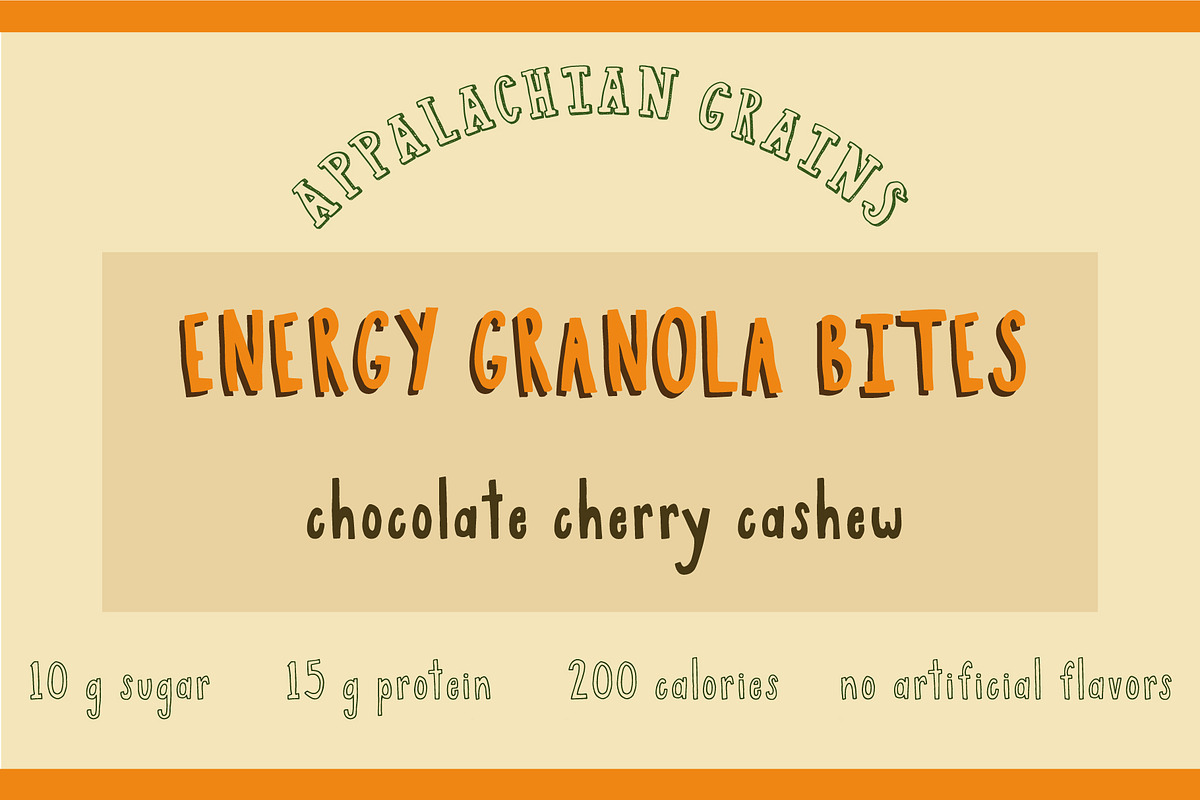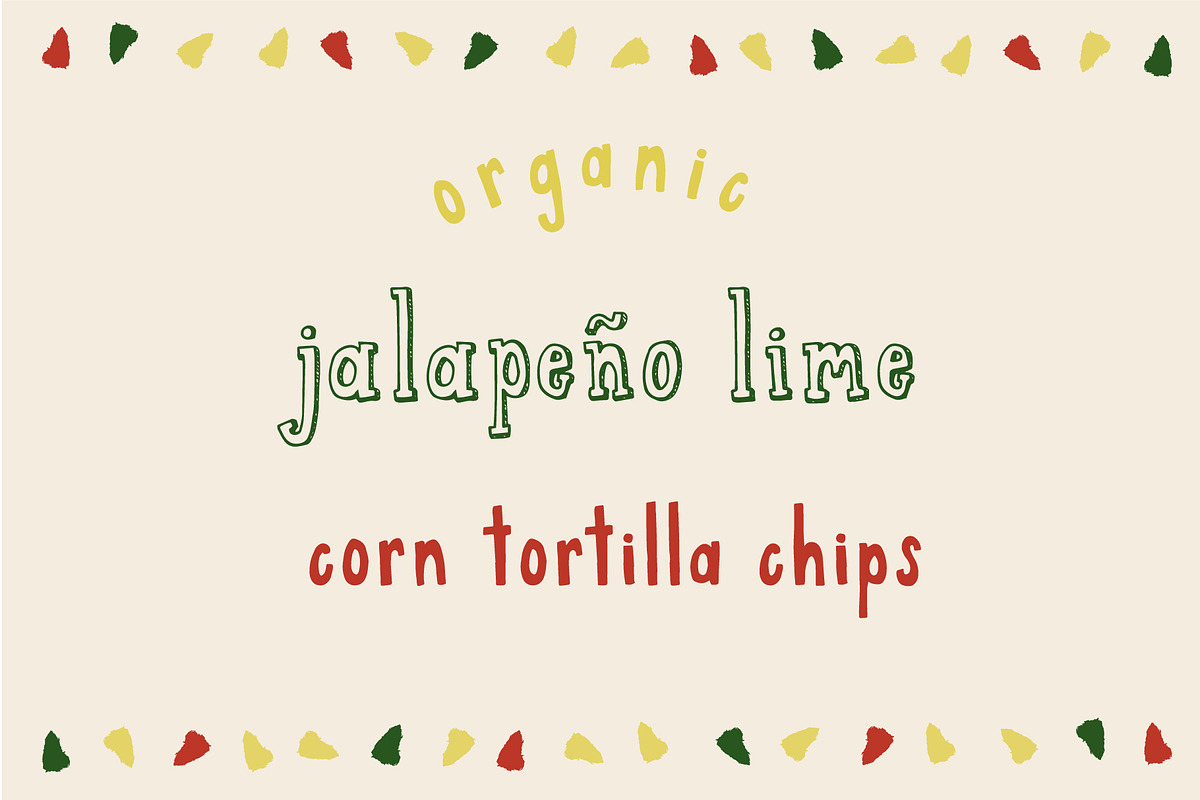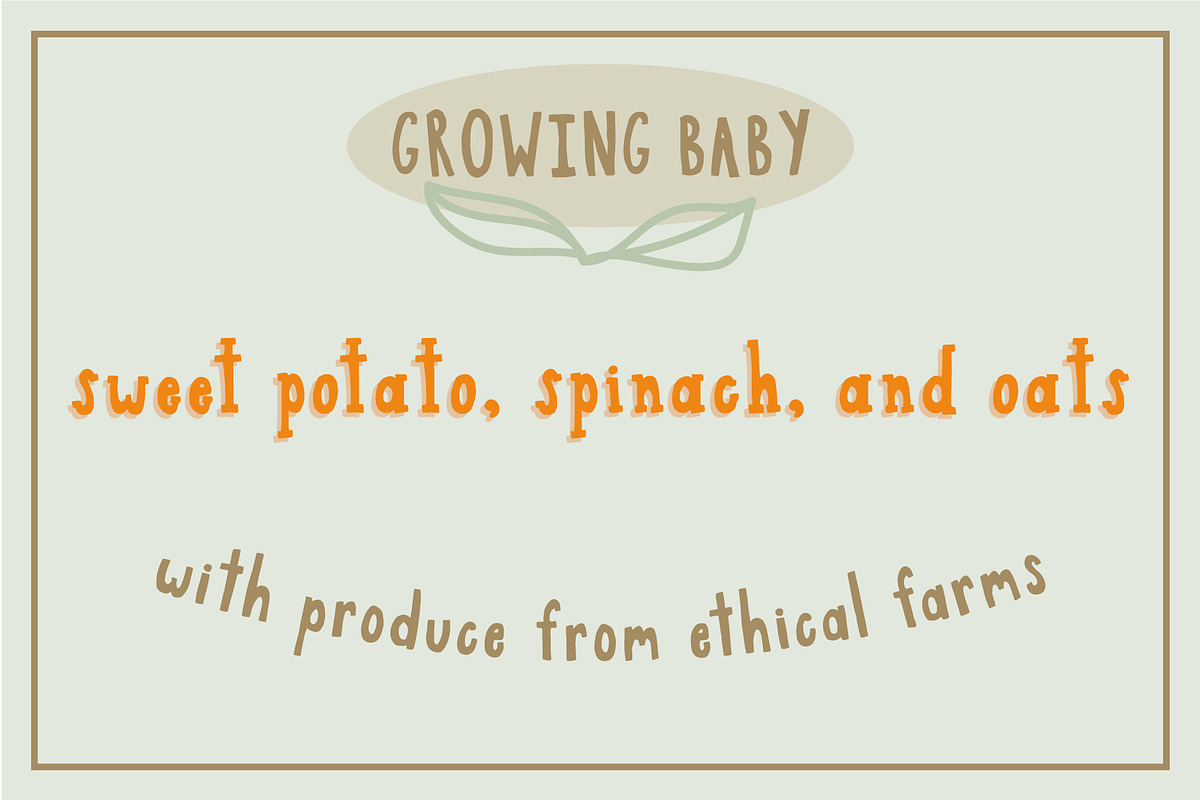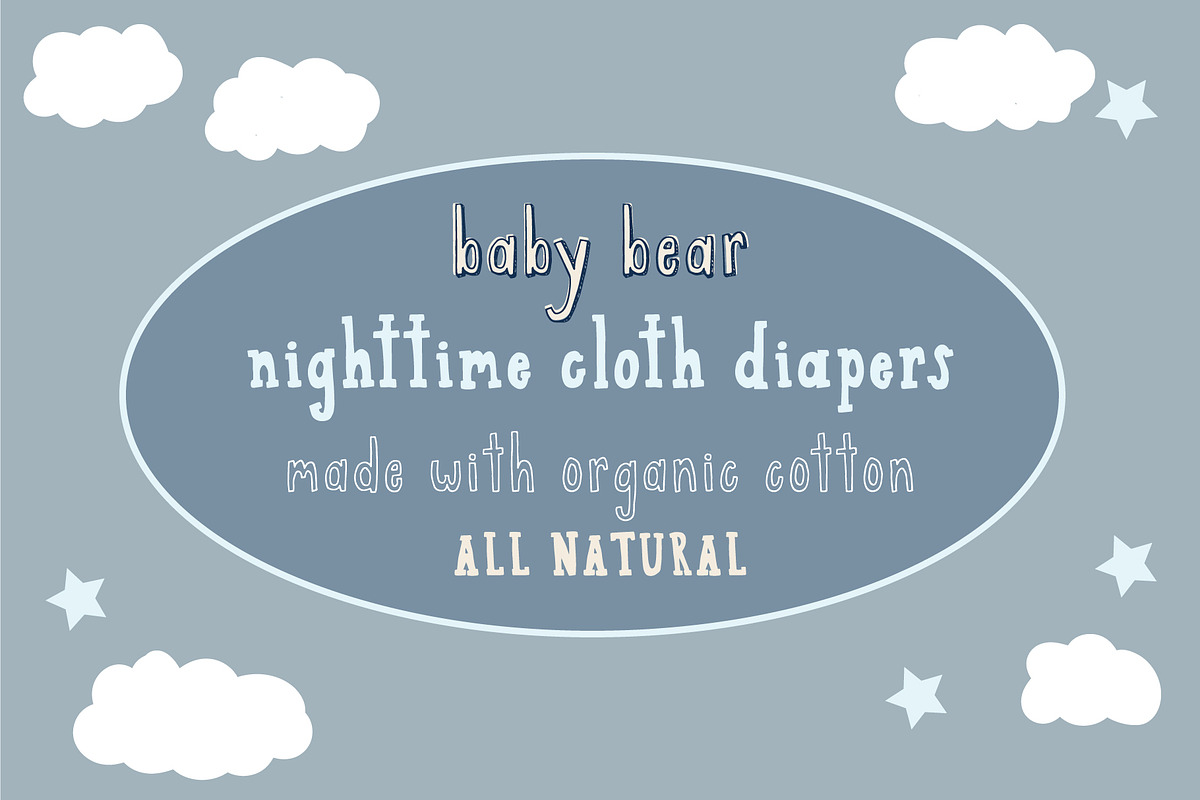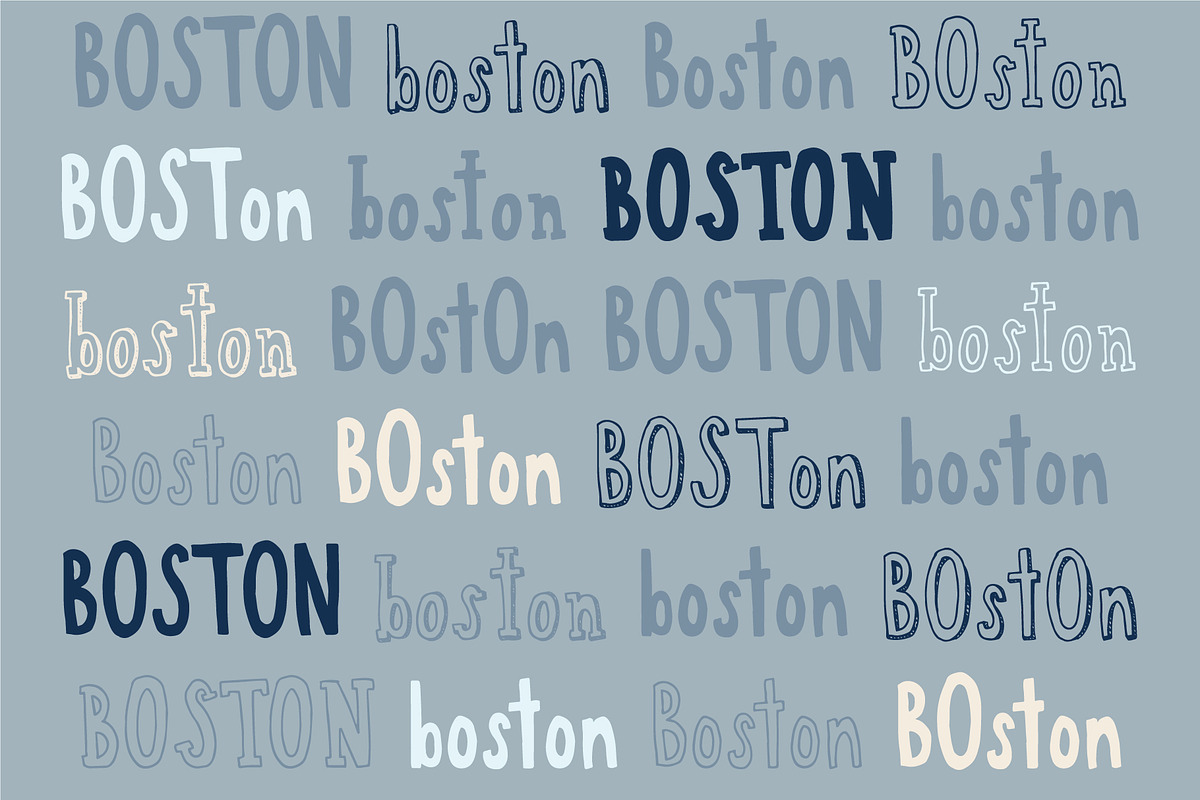
Boston Cream Sans and Serif
Introducing Boston Cream! This product features 6 font files perfect for your next project whether you are creating an eye catching poster, quirky food packaging, or a fun social media post.
The fonts are perfect to mix and match and layer on top of one another to create unique designs that look handmade. All numbers and punctuation are included for every style. Multilingual Western European characters are also included in every style. Let me know if you have any questions and I'd be happy to help! -Kellie Jayne